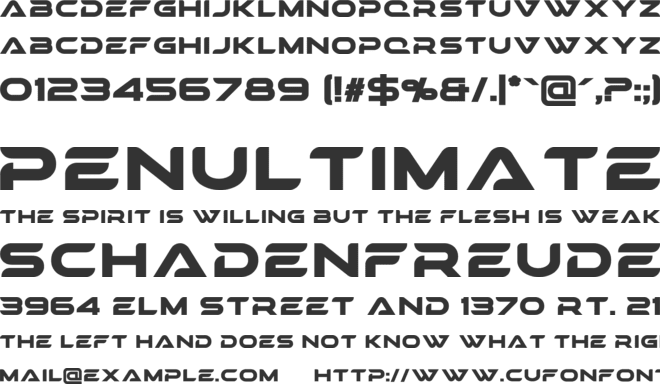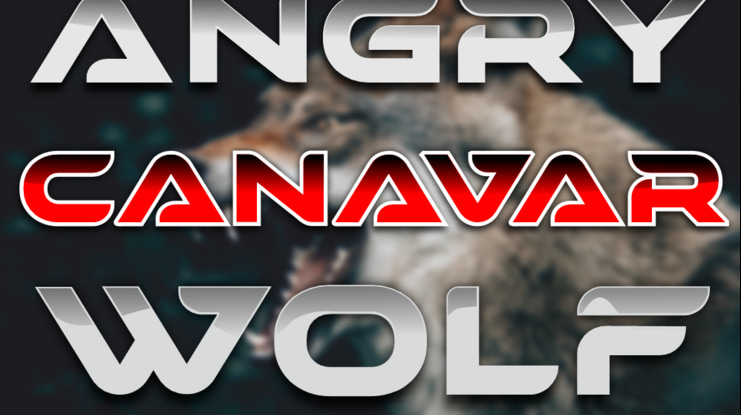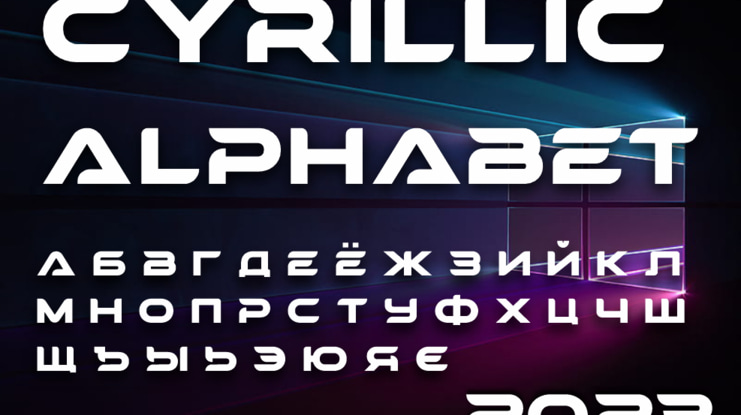
CANAVAR Font
The Canavar Display Font features a contemporary and distinctive design concept that seamlessly blends modernity, futurism, and geometry. Its bold and edgy aesthetic makes it ideal for designs that require a powerful impact. This font is versatile and can be used for a range of purposes, including branding, logo design, apparel, and other projects that call for a futuristic or high-tech impression.